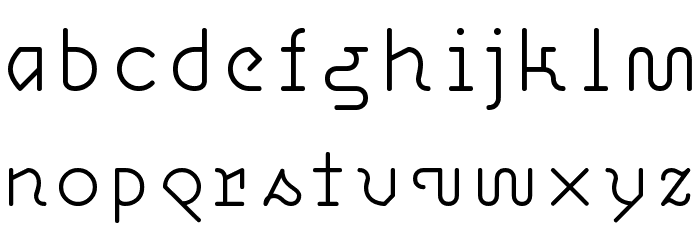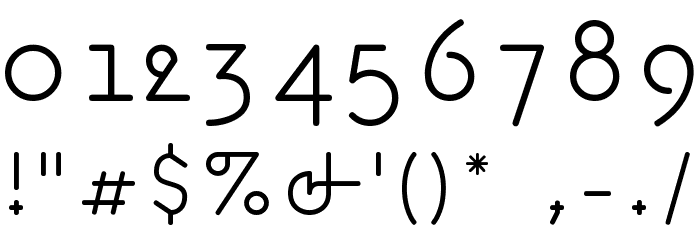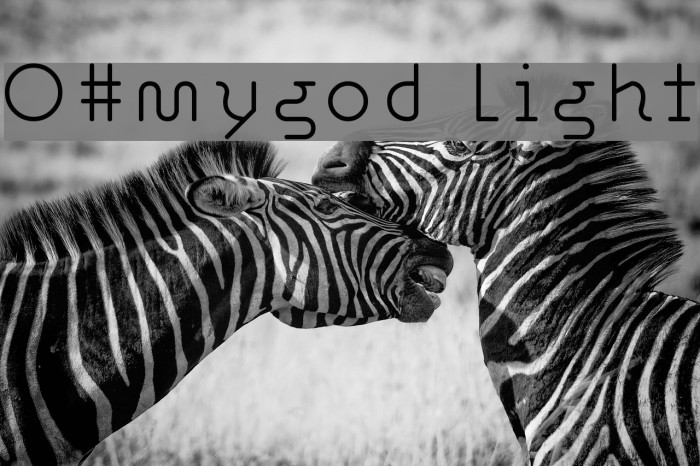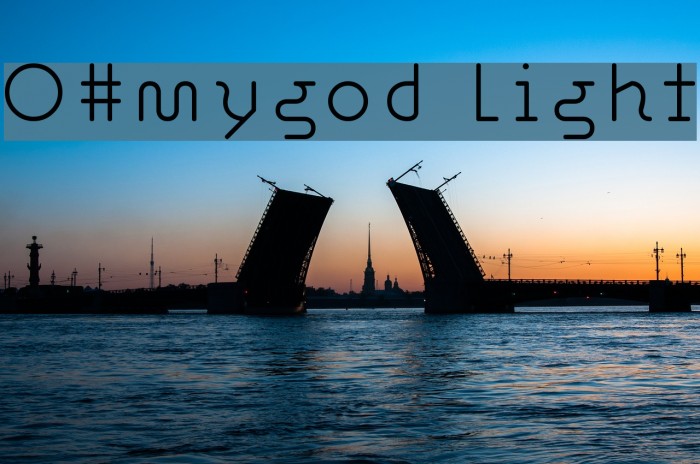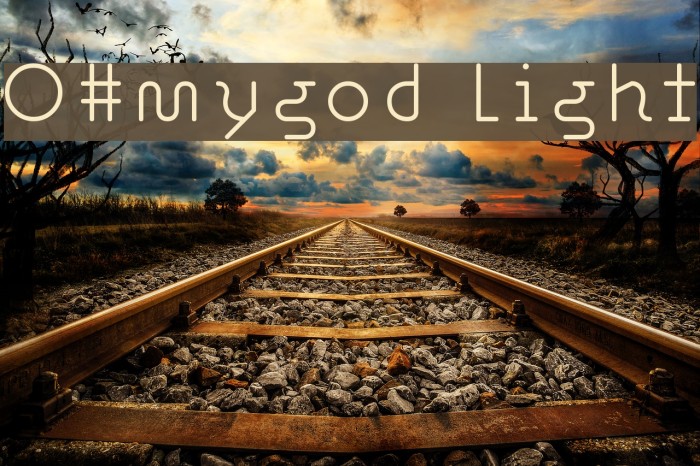
OHmygod Light Font
This font features a playful and quirky design with a unique twist on traditional letterforms. Each character exhibits a distinct personality, with unexpected curves and angles that create a sense of movement and energy. The uppercase letters are bold and assertive, while the lowercase letters maintain a whimsical charm. Numbers and special characters follow the same playful aesthetic, making the font versatile for creative projects. The overall design is modern and artistic, suitable for capturing attention and adding a fun element to any text.
A playful and quirky font with unique twists and modern flair.
- Proposed Projects: Ideal for creative branding, children's books, playful posters, and artistic invitations.